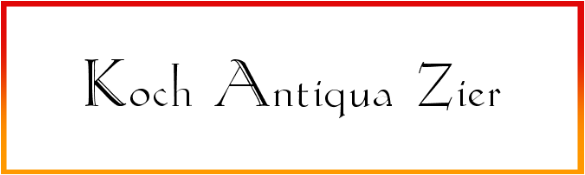
Koch-Antiqua Zier
Koch-Antiqua Zier is a fancy font designed by Dieter Steffmann (2000). Bold and full of character, it's built to stand out rather than blend in. You can download it for free and test it with your own words in the preview above.
What You Can Type With Koch-Antiqua Zier
You get every letter from A to Z in both cases and all the numbers from 0 to 9, which means Koch-Antiqua Zier can handle full sentences, dates and prices. Common punctuation such as &, !, ? and @ is included as well. It also has the accented letters you need for Spanish, French, German, Portuguese and Italian.
Where Koch-Antiqua Zier Works Best
Think of Koch-Antiqua Zier for posters, logos and eye-catching headlines. The file has no kerning data, so in logos and big titles check pairs like AV, To and Wa and tighten the spacing by hand. Use it for one standout word or headline and let simpler fonts handle the rest.